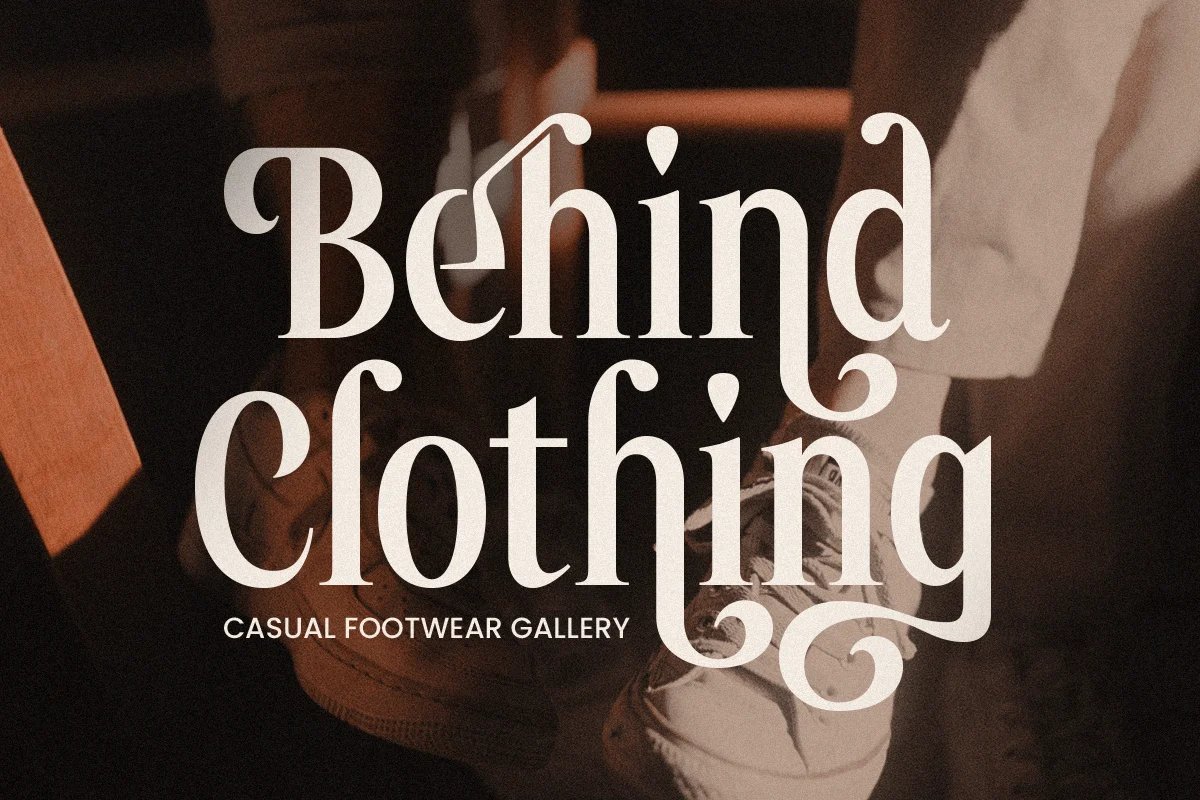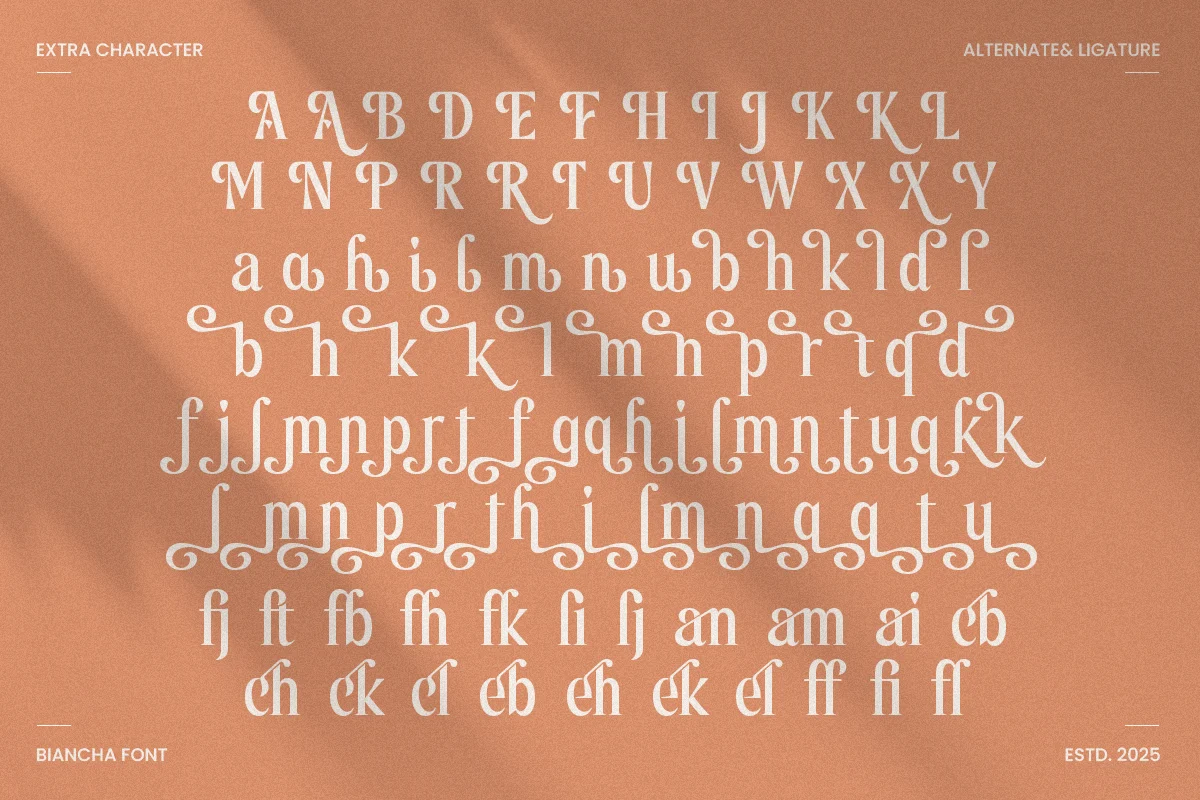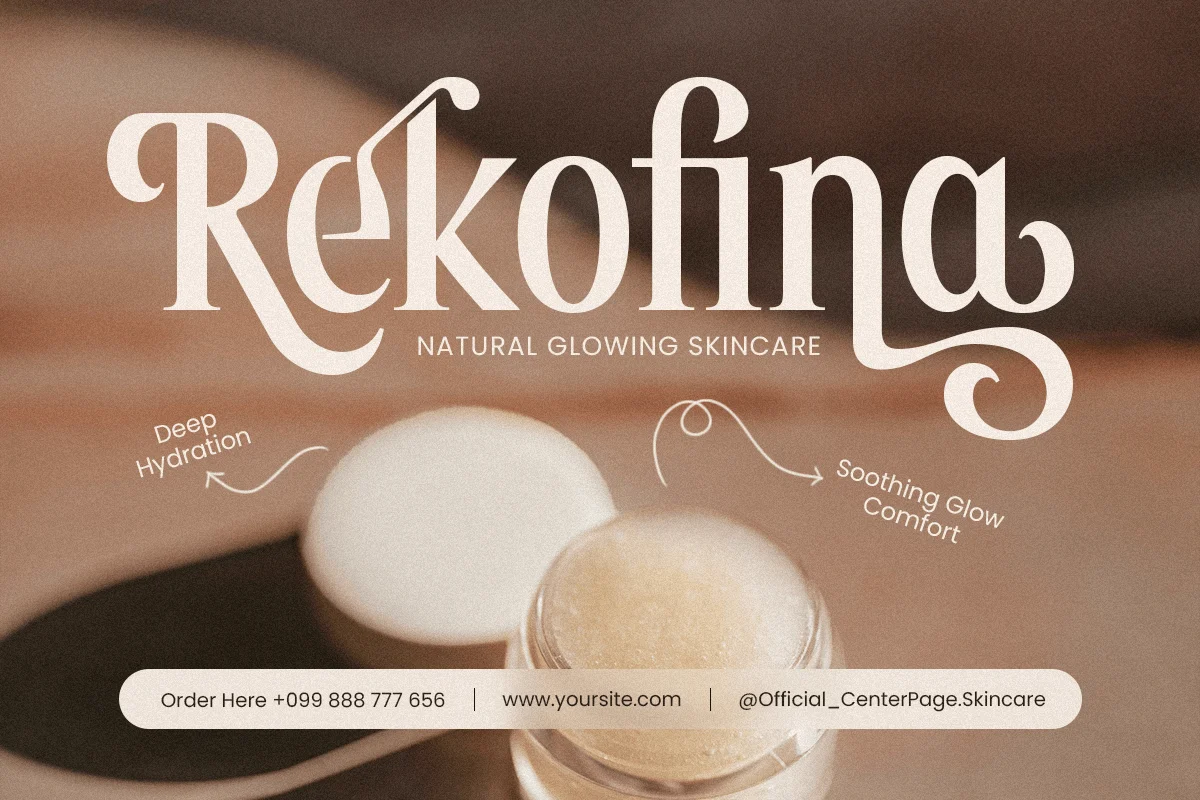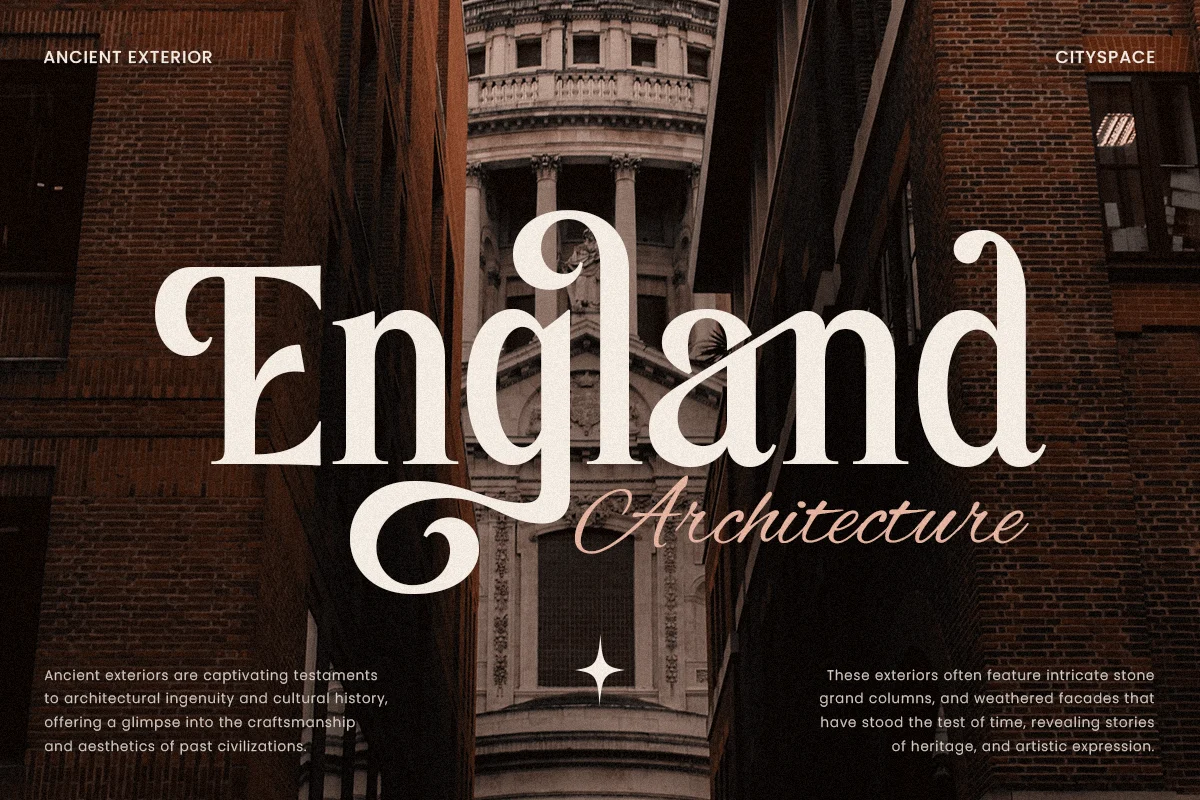
Biancha – Modern Luxury Serif Font
Biancha is a modern luxury serif font that exudes elegance, refinement, and timeless beauty. With its graceful curves, sharp serifs, and balanced proportions, this font is perfect for high-end branding, fashion editorials, luxury packaging, wedding invitations, and sophisticated logos.
Designed for premium aesthetics, Biancha combines classic serif charm with a modern twist, making it ideal for magazine headlines, beauty products, upscale marketing materials, and stylish social media graphics. Whether you're crafting a chic brand identity or an elegant editorial layout, this typeface adds a touch of sophistication and exclusivity.
Elevate your designs with Biancha, the ultimate choice for a luxurious and contemporary look.
Biancha - Modern Luxury Serif Font Features:
- Elegant, refined, and modern serif design
- Perfect for luxury branding, fashion, and editorial layouts
- Uppercase and lowercase letters
- OpenType features with stylish alternates and ligature characters
Achieve modern sophistication and timeless elegance with Bianchaβthe perfect luxury serif font for your high-end design projects.